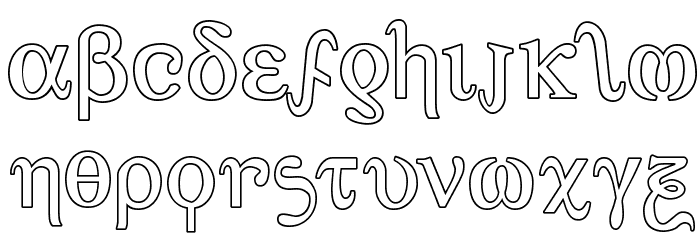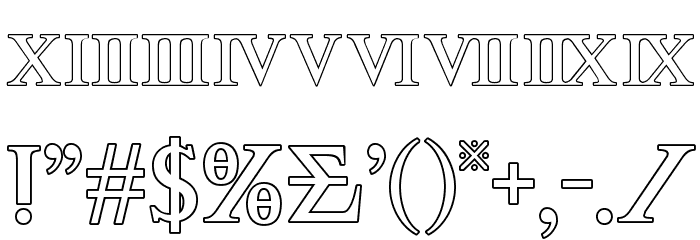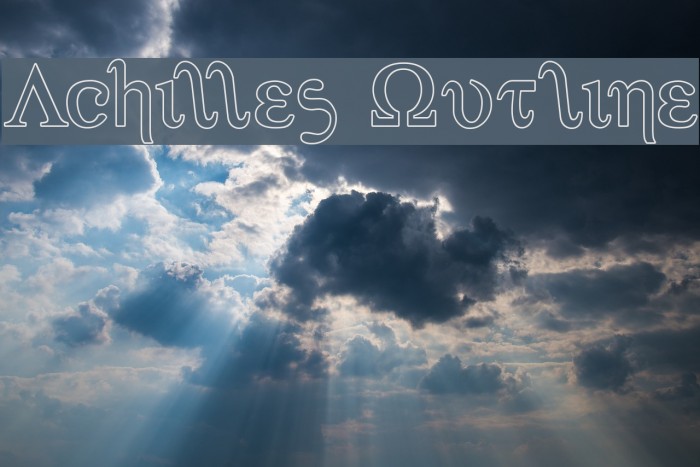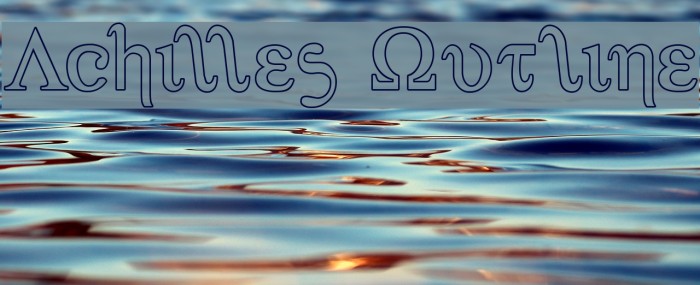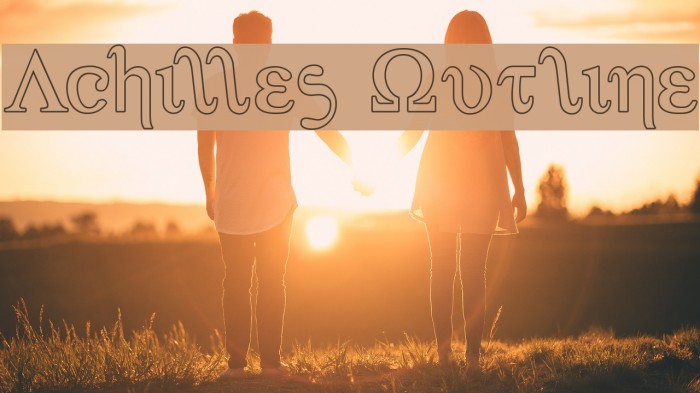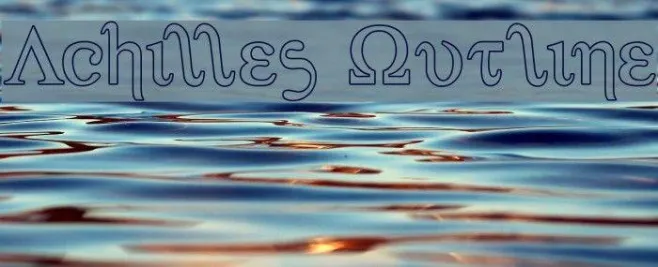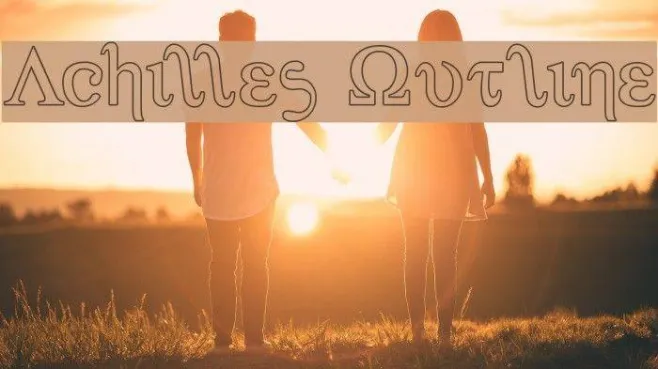
Achilles Outline Font
This font features a unique outline style that combines classical Greek elements with modern design. The uppercase letters are bold and structured, with a distinct geometric influence, while the lowercase letters maintain a fluid and dynamic form. The use of outlines gives the font a light and airy feel, making it stand out without being overpowering. The numerals are consistent with the overall style, offering a cohesive look across all characters. Special characters are included, maintaining the same outlined aesthetic, which adds versatility to the font's application. This font is ideal for projects that require a touch of elegance and historical flair, such as branding, posters, or editorial design.
A modern outline font with Greek-inspired elements and a geometric touch.
- Proposed Projects: Ideal for branding, posters, editorial design, and projects needing a classical yet modern touch.